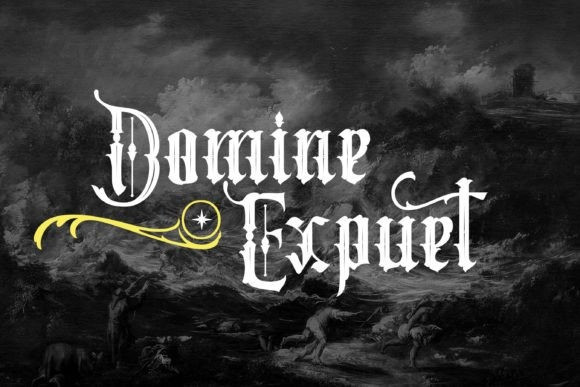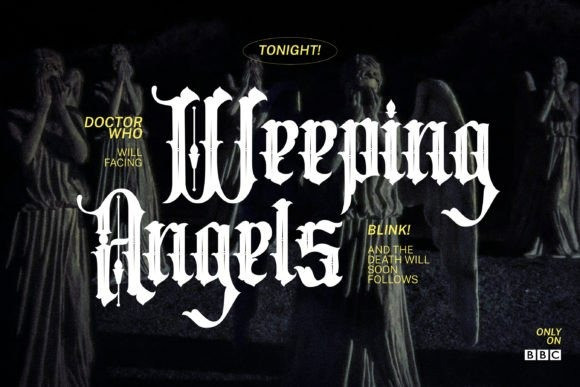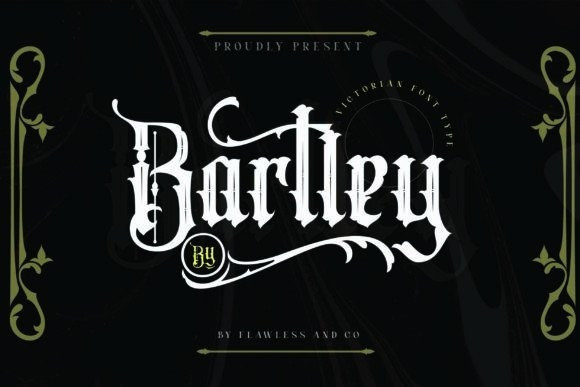
Bartley Blackletter Font
Bartley Blackletter Font, a striking blackletter font that merges tradition with a modern edge. This exquisite typeface is meticulously crafted to bring a touch of Gothic elegance to your designs. Designed with versatility in mind, Bartley lends itself to a wide range of creative projects.